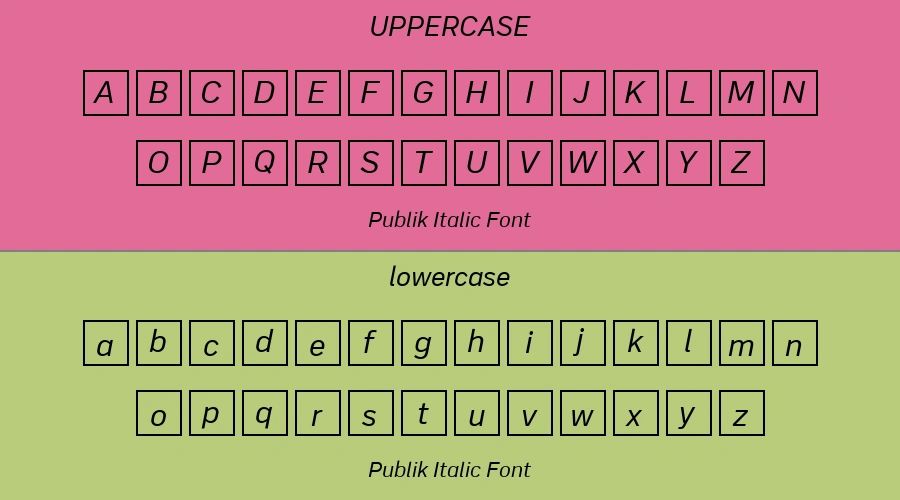
About Publik Italic Font
Publik Italic Font represents a sophisticated approach to type design, balancing balanced tension with authenticity. Perfect for product packaging, this font family showcases impressive adaptability and functional utility throughout its character set. Designers appreciate its versatility and reliability.
Designers will appreciate nuanced touches including humanist proportions and connecting forms, adding sophistication to any project. These features become apparent in instruction steps, where detail retention matters most. The careful treatment of bowl shape and modern touches ensures optimal performance.